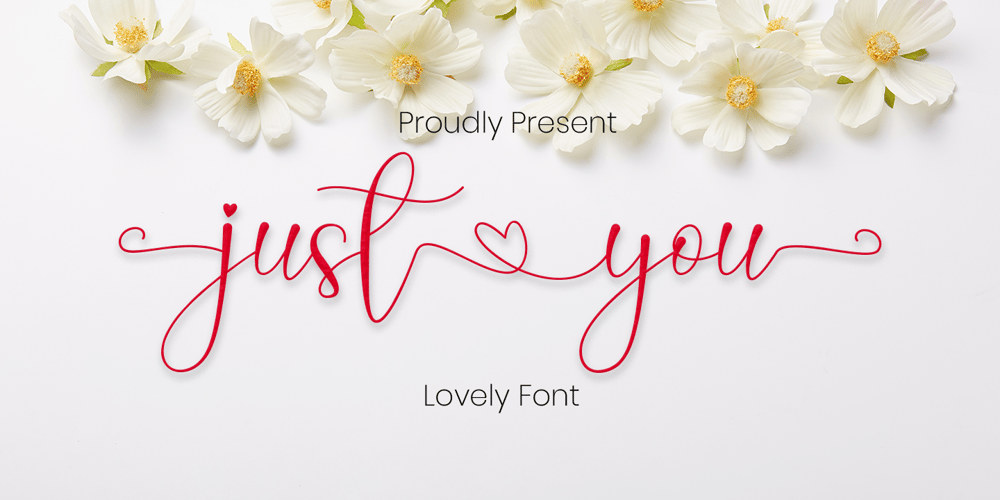
Just You Font Family was designed by Mohamad Candirah and published by MC Creative. Just You contains 1 styles and family package options. Just You is an elegant calligraphy and natural script style.Just You Modern Calligraphy is perfect for wedding designs, shared moments, branding projects, logos, social media posts, advertisements, product packaging, product design, labels, photography, watermarks, invitations, stationery, and any project that requires a handwritten feel.What’s Included :· Standard glyphs· Ligature· Works on PC & Mac· Simple installations· Accessible in the Adobe Illustrator, Adobe Photoshop, Adobe InDesign, even work on Microsoft Word.· PUA Encoded Characters – Fully accessible without additional design software.· Fonts include multilingual support for; ä ö ü Ä Ö Ü ß ¿ ¡